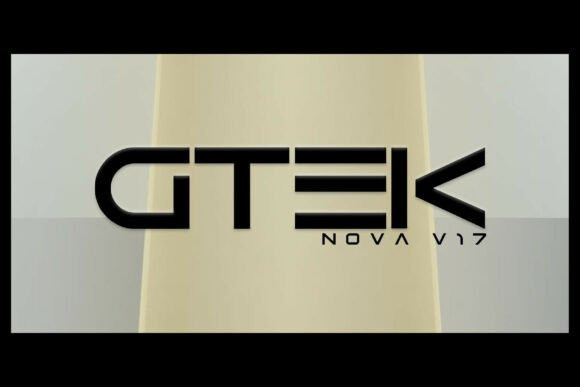
Gtek Nova Font
Gtek Nova Font is an ultra-modern, futuristic display font that emphasizes high-tech precision and industrial geometry. The typeface features wide, blocky letterforms with a strong horizontal emphasis and sharp, technical cutouts.
The characters are built with uniform stroke weights and perfectly flat terminals, giving the text a stable, robotic, and authoritative presence. This font is a premier choice for gaming brand identities, science fiction cinematic titles, automotive logos, and any project requiring a cutting-edge, digital aesthetic.